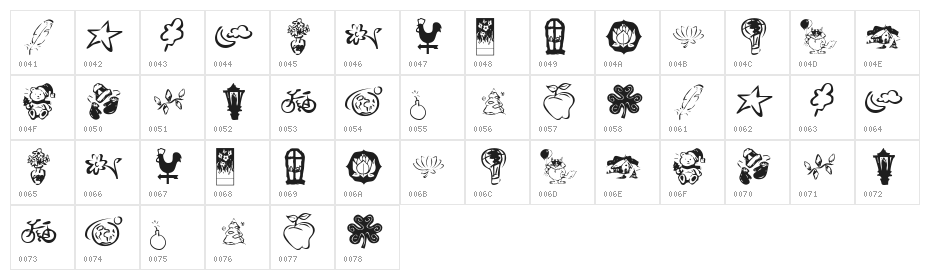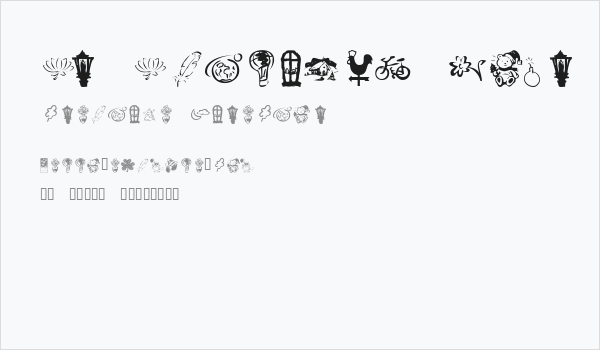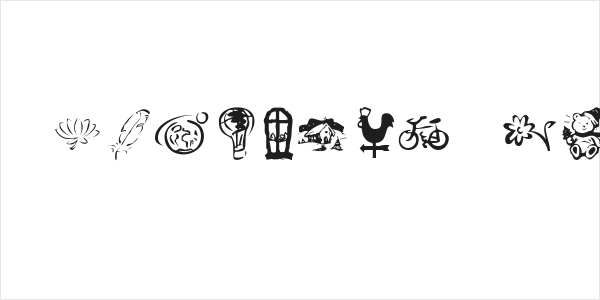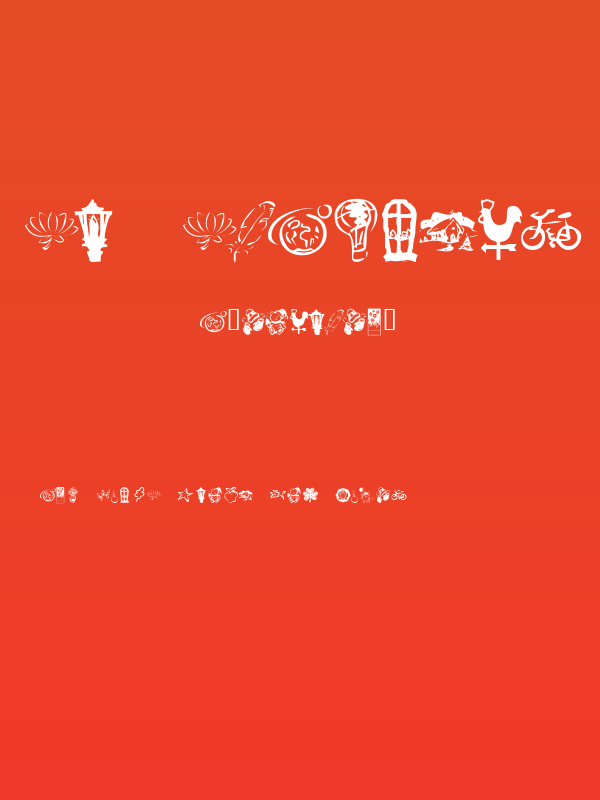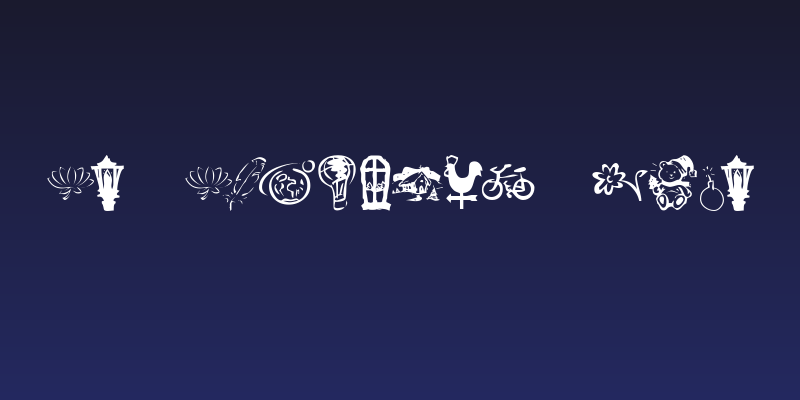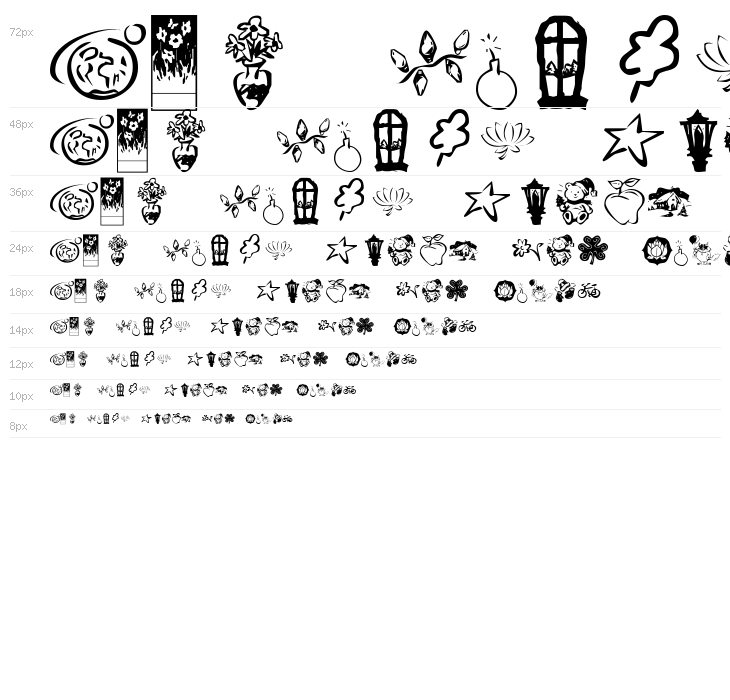
KR Katlings Four Font
KR Katlings Four Description
A decorative dingbat font featuring a variety of whimsical and playful pictograms, including stars, clouds, animals, plants, objects, and cartoon-like characters. Each glyph is a unique illustration rather than a traditional letterform, with bold outlines and a hand-drawn, sketchy style.
Overall StylePlayful, Whimsical, Decorative
Use CaseDecorative elements, Icons, Themed designs
Proposed ProjectsChildrenÒ€ℒs books, party invitations, scrapbooking, decorative borders, playful branding, educational materials.